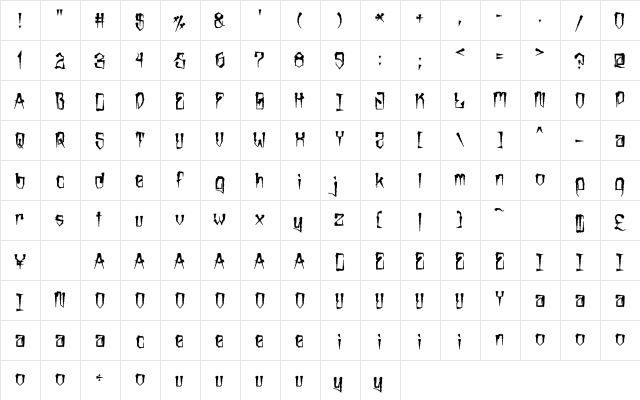
MarkerNo3HUN Rough I - Bold
Design Context for MarkerNo3HUN Typeface
MarkerNo3HUN embraces imperfection — its rough, textured character adds raw authenticity to designs that want to feel lived-in and unconventional.
A strong fit for alternative music projects, graffiti-adjacent design, and anything that deliberately resists polish.
Pro Tip: Use MarkerNo3HUN at larger sizes where the texture and irregularity of each letterform can be clearly seen — it loses its character at small sizes.